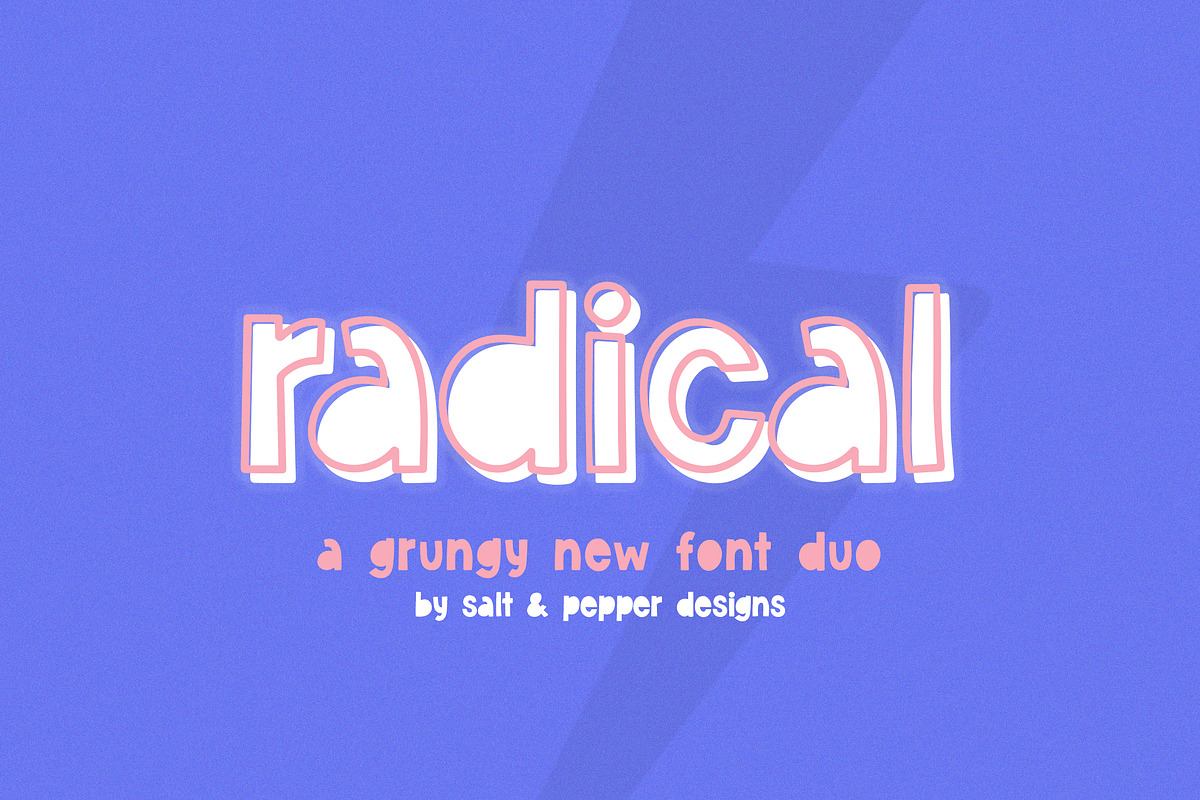
Radical Font Duo Free Download is a bold and dynamic font pairing that brings a striking and modern feel to your designs. This duo combines a strong sans-serif with a unique script, offering both versatility and style. Whether you're creating impactful headlines, designing a trendy logo, or working on stylish packaging, this font duo gives you the perfect balance between contemporary elegance and handwritten charm. The Radical Font Duo Free Download allows you to experiment with the fonts in personal projects or concept designs before purchasing a commercial license. With its edgy look and dynamic contrast, Radical Font Duo is ideal for creating designs that stand out and make a statement. Elevate your creative work with this powerful and distinctive font duo.